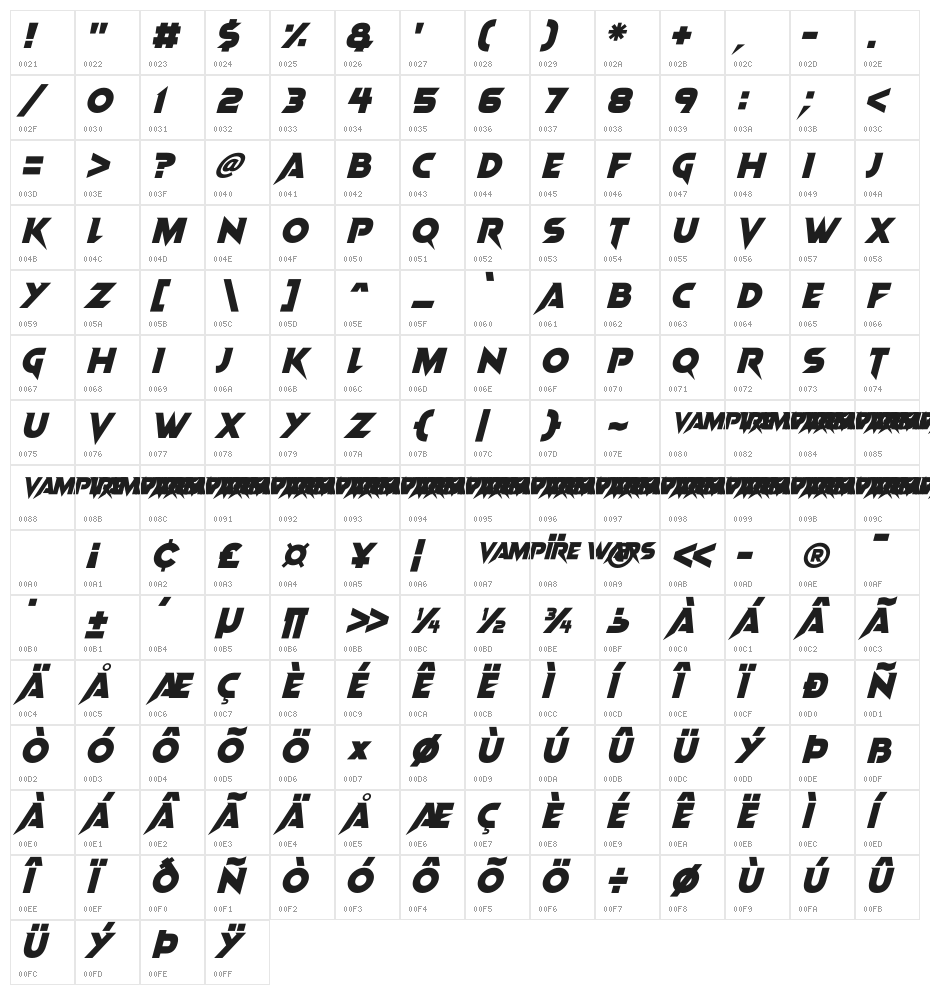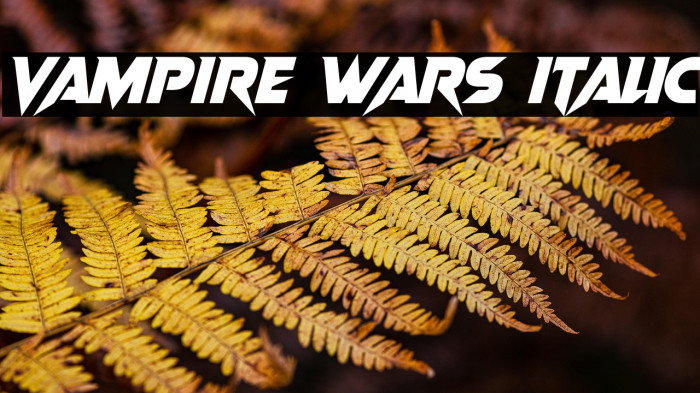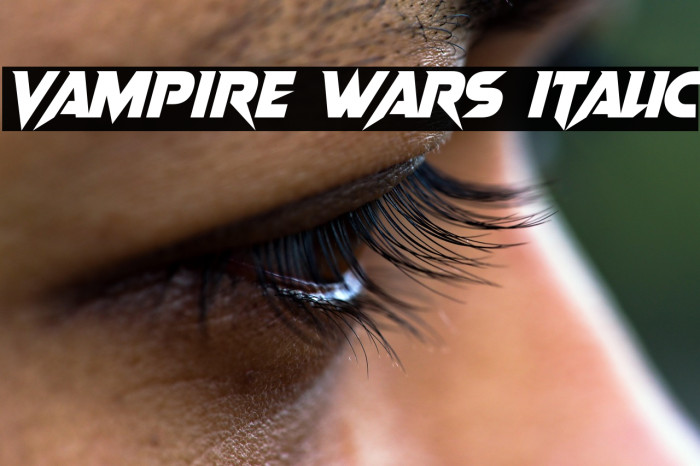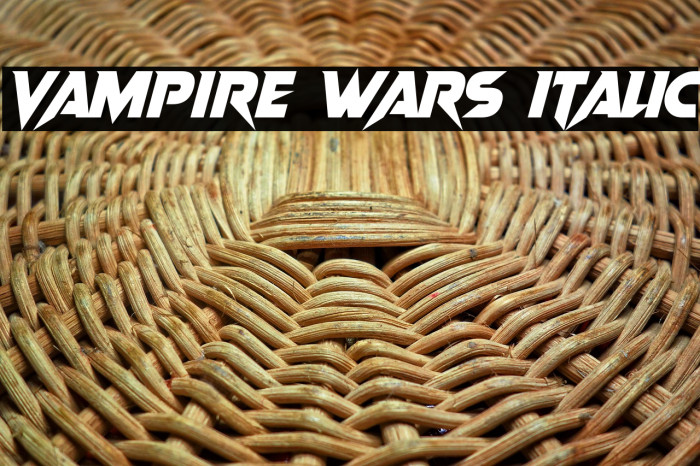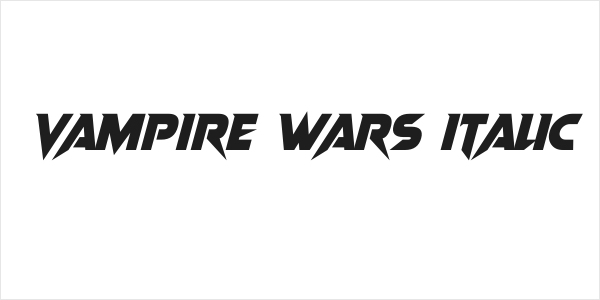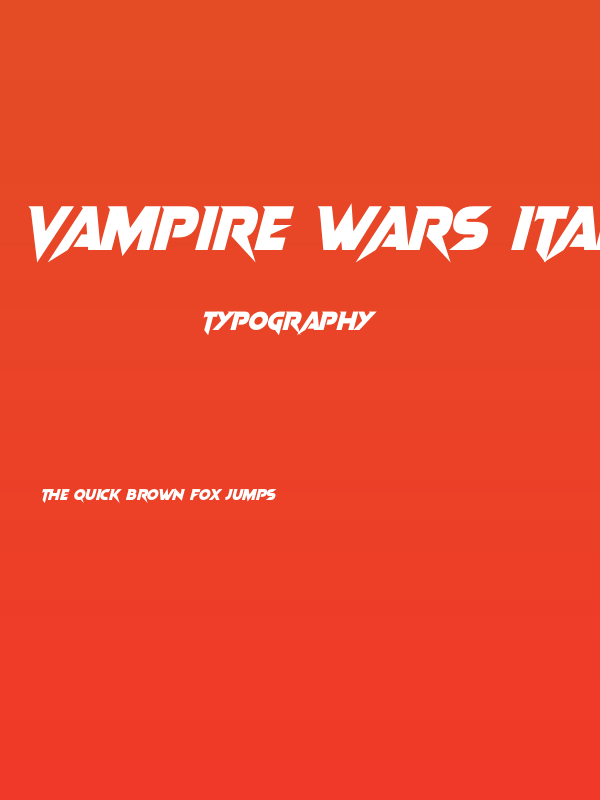
Vampire Wars Italic Font
Vampire Wars Italic Description
This font features a bold, italicized style with sharp, angular edges that convey a sense of motion and intensity. The characters are designed with a strong emphasis on diagonal lines, giving them a dynamic and aggressive appearance. The uppercase and lowercase letters maintain a consistent style, with the lowercase letters slightly smaller but equally impactful. Numbers and special characters are crafted to match the overall aesthetic, ensuring a cohesive look across all text elements. The font's boldness and unique design make it stand out, ideal for projects that require a strong visual impact.
Proposed ProjectsIdeal for video game titles, movie posters, branding for edgy or modern products, and any project requiring a strong, impactful font.